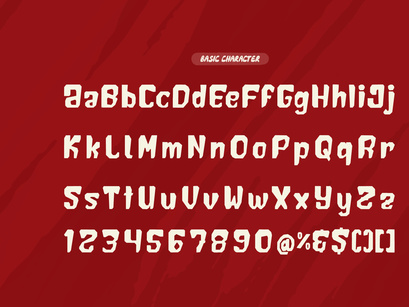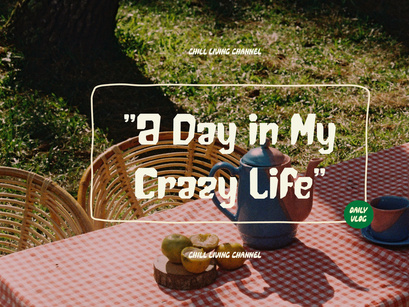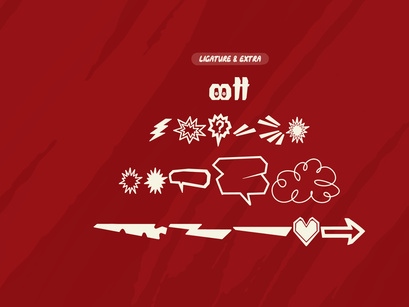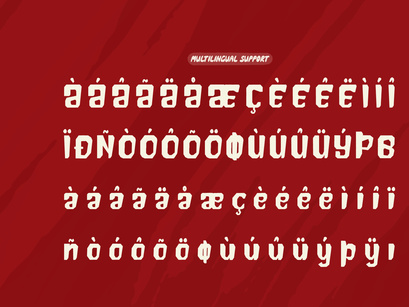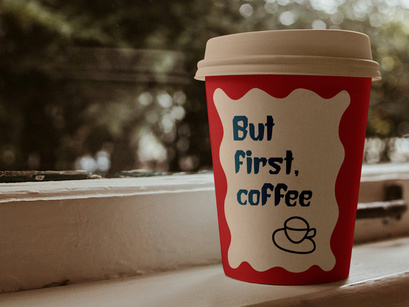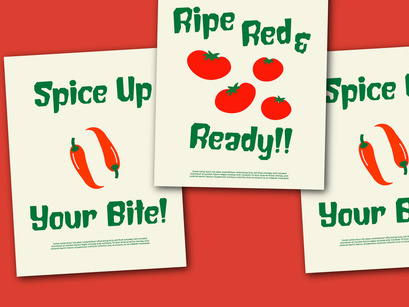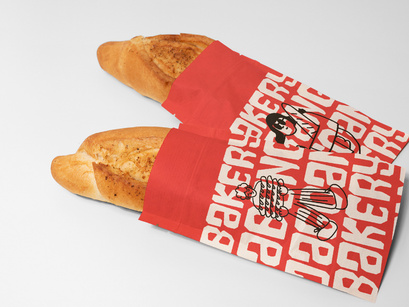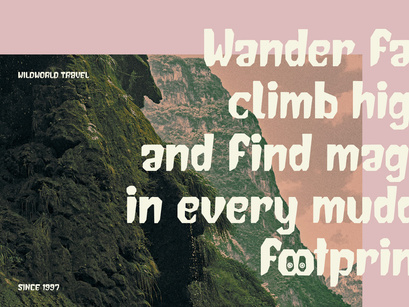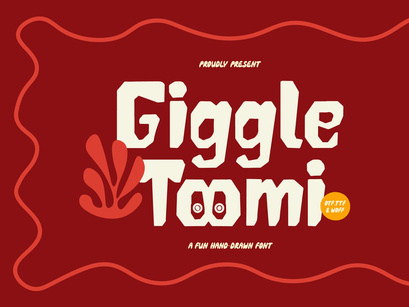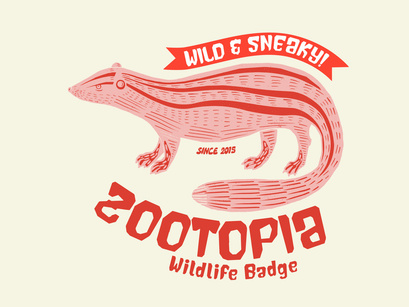
Giggle Toomi | Fun Hand Drawn Font
Giggle Toomi | Fun Hand Drawn Font, from Gracetypestudio, suitable for any projects such as: logos, branding projects, homeware designs, product packaging, mugs, quotes, posters, shopping bags, t-shirts, book covers, name card, invitation cards, greeting cards, label, photography, watermark, special events, and all your other lovely projects that need a Fun Hand Drawn Font taste.